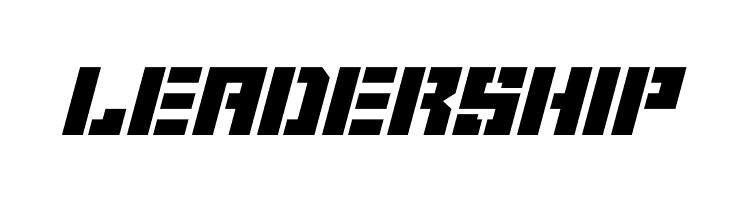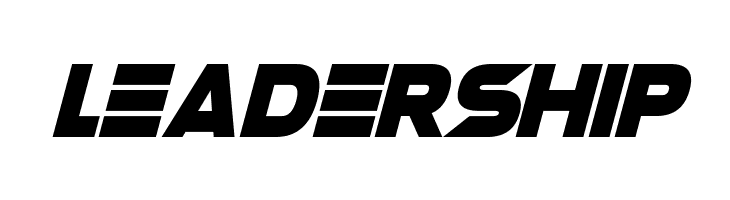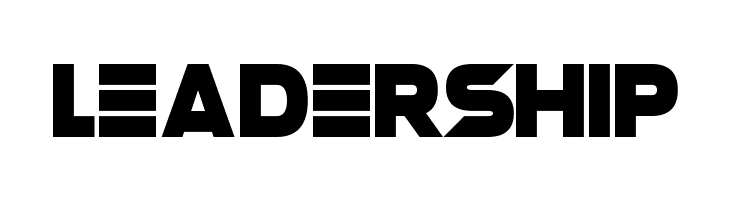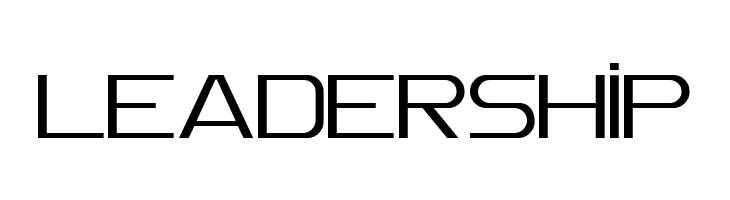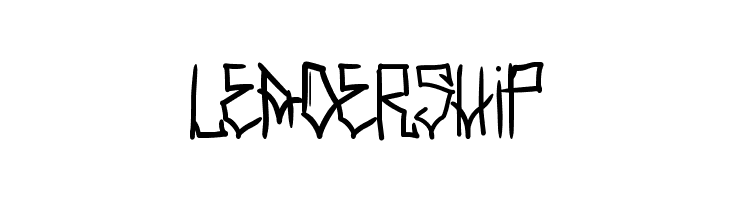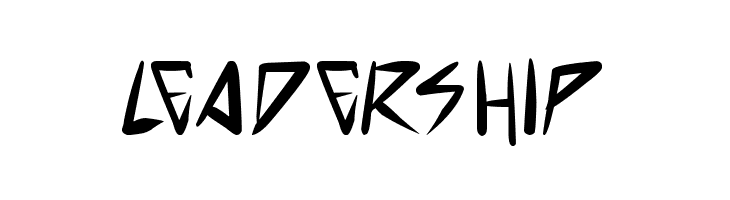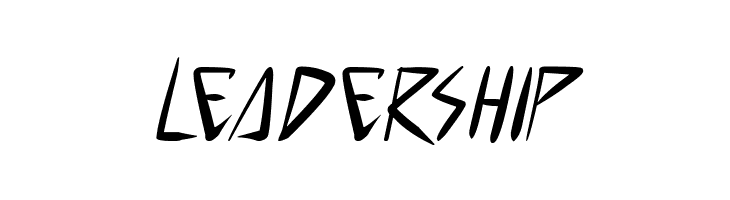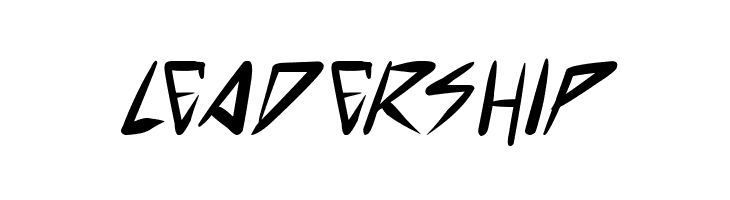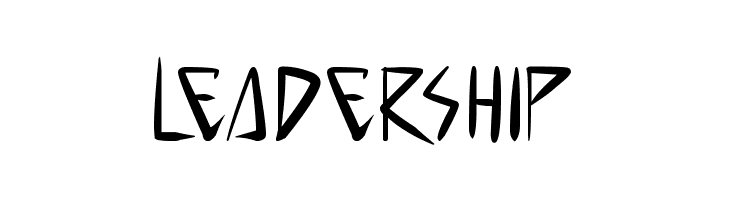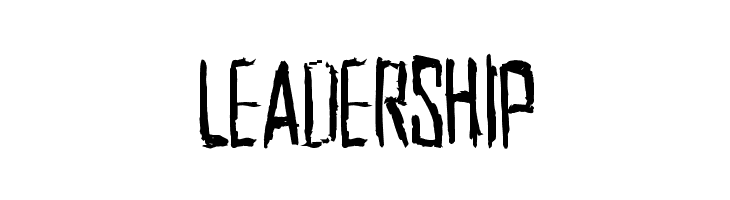
A bold, graffiti-inspired font with angular, edgy letterforms.
A rugged, distressed font with a bold, graffiti-like style.
A playful, handwritten font with a continuous, cursive-like style.
A futuristic, geometric font with bold, angular letterforms and tight spacing.
A futuristic, geometric font with a neon-inspired, outlined design.
A futuristic, geometric font with a bold, block-like appearance.
A bold, textured font with a modern and decorative style.
A modern, geometric font with a sleek and minimalist design.
A classic serif font with elegant, tapered strokes and a refined appearance.
A bold, futuristic font with geometric and angular letterforms.
A bold, playful font with a comic book style, featuring thick, rounded characters.
A futuristic, geometric font with rounded edges and a bold, cohesive design.
A modern, rounded font with a playful yet clean aesthetic.
A dynamic, angular font with a futuristic and edgy design.
A bold, angular font with a futuristic and edgy style.
A bold, italic font with sharp, angular lines and a futuristic style.
A dynamic, angular italic font with a futuristic and edgy style.
Hand-drawn, space-themed decorative font with playful doodles.
A futuristic, bold, and angular font with a geometric design.
A bold, geometric font with a futuristic and industrial design.
A bold, graffiti-inspired font with a dynamic, hand-drawn style.
A bold, futuristic font with geometric shapes and sharp angles.
A bold, textured font with a chalk-like appearance and dynamic style.